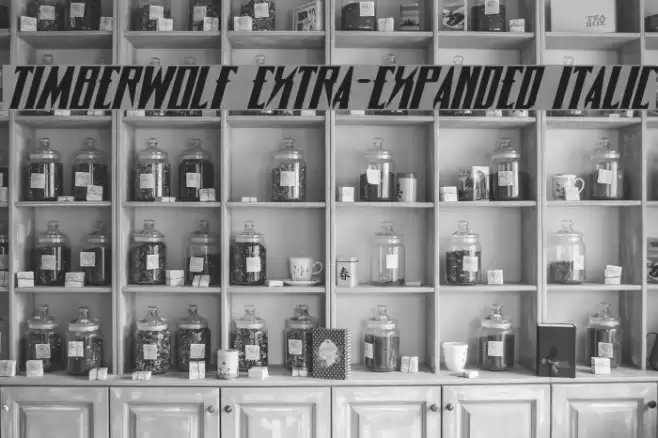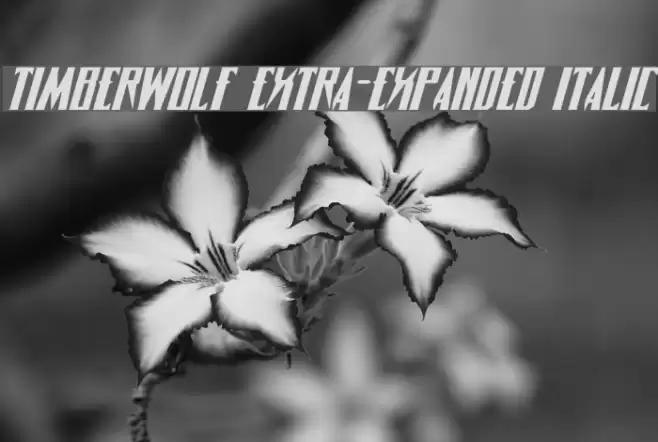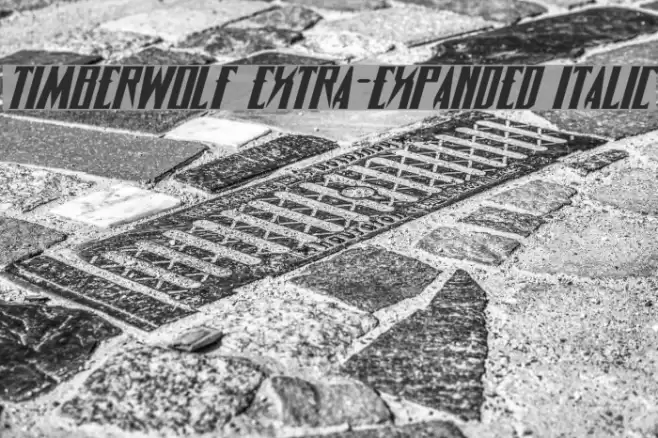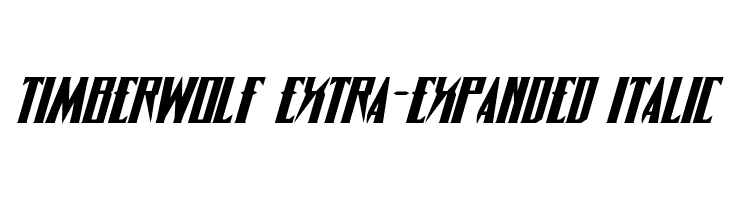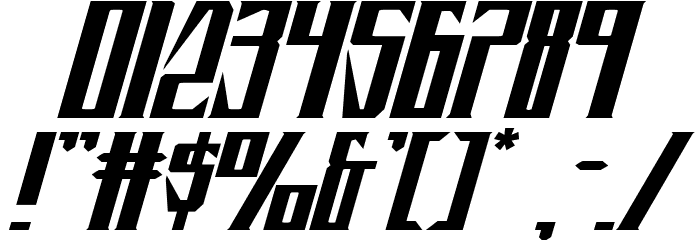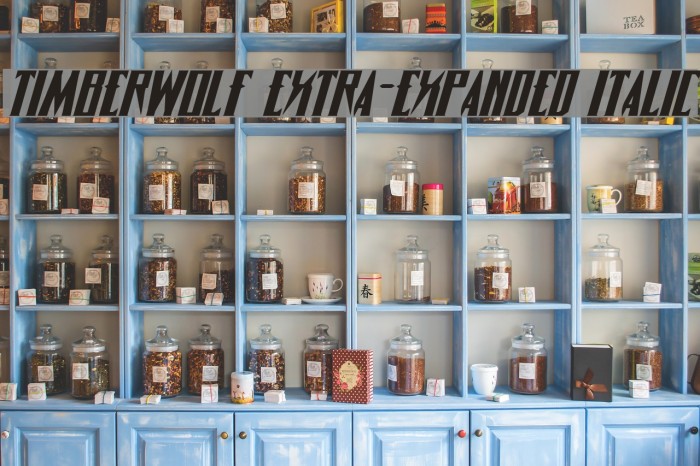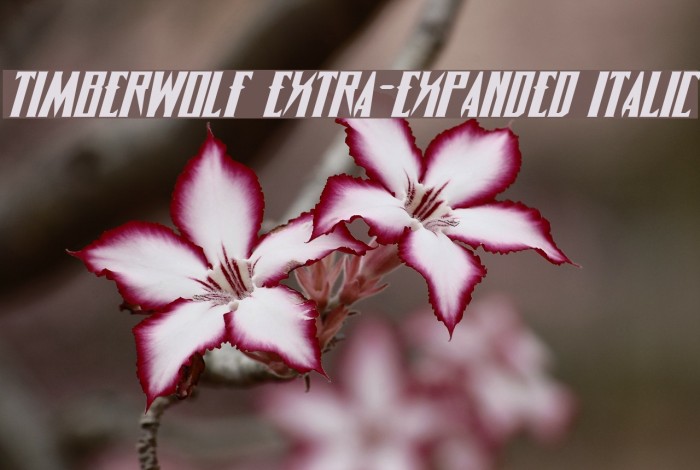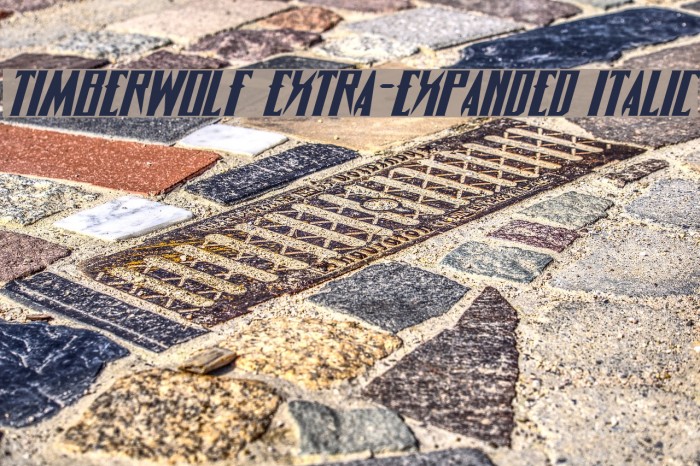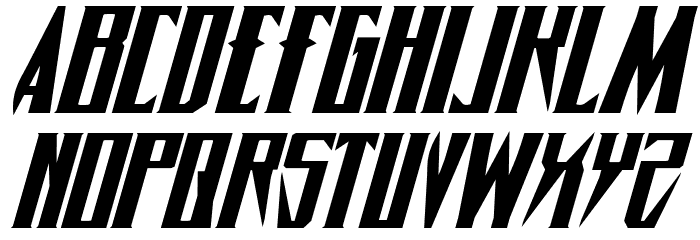
Timberwolf Extra-expanded Italic Font
Timberwolf Extra-expanded Italic Description
This font exhibits a bold and dynamic style, characterized by its extra-expanded width and italic slant. The letters are sharply angled, giving a sense of movement and energy. The uppercase and lowercase characters maintain a consistent design, with strong geometric shapes and a futuristic feel. The numbers and special characters follow the same aesthetic, ensuring uniformity across all glyphs. The font's unique style makes it stand out, suitable for projects that require a bold statement.
A bold, extra-expanded italic font with a dynamic and futuristic style from Uncategorized fonts.
- Proposed Projects: Ideal for use in posters, headlines, branding, and any design project that requires a strong, impactful presence.